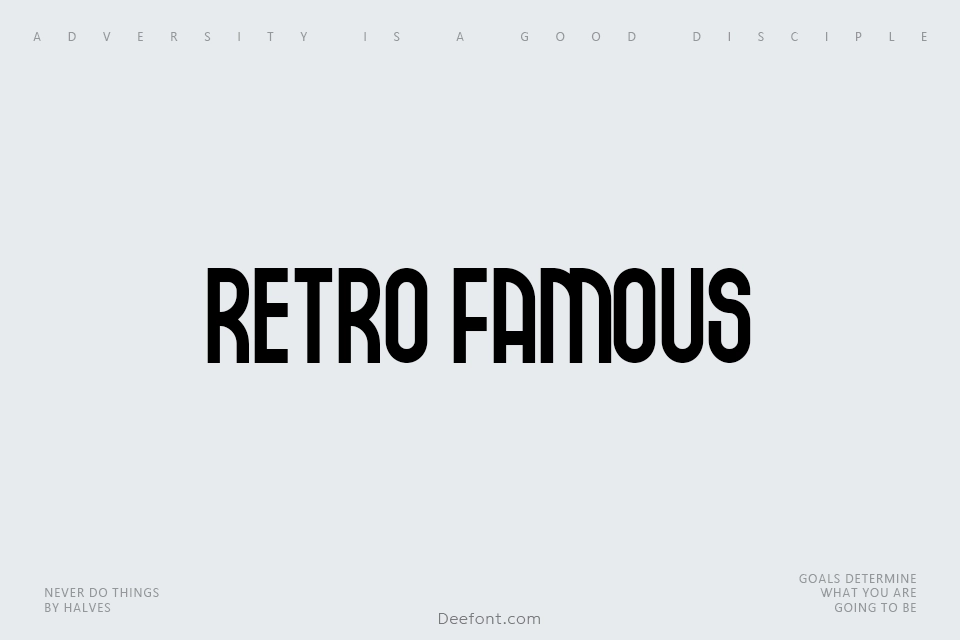
Retro Famous Font
Retro Famous is a condensed retro typeface designed by Vladimir Nikolic, featuring a distinctive vintage aesthetic that brings nostalgic appeal to any design project. With its bold, extra-condensed character forms, this display font delivers impactful headlines and poster designs that capture the essence of classic retro styling. Perfect for vintage-inspired graphics, advertisements, and creative branding, the font combines contemporary design principles with timeless retro charm. Its unique letterforms and refined proportions make it an excellent choice for designers seeking to add authentic vintage character to their typography. The font family includes two weights for versatile creative applications.